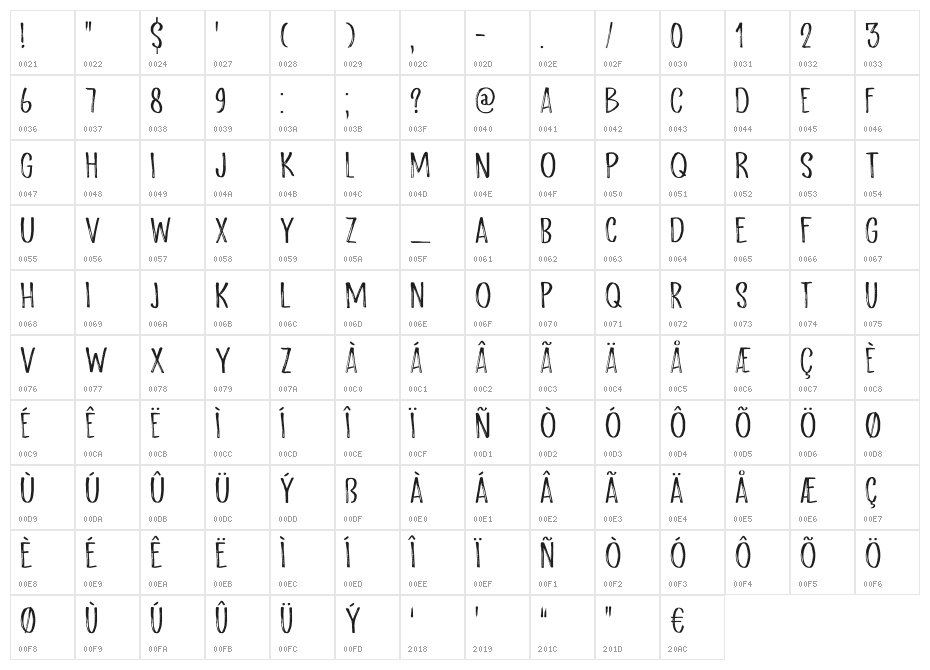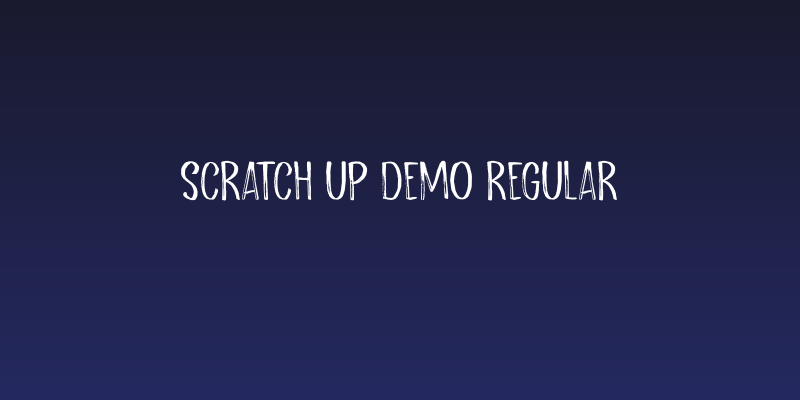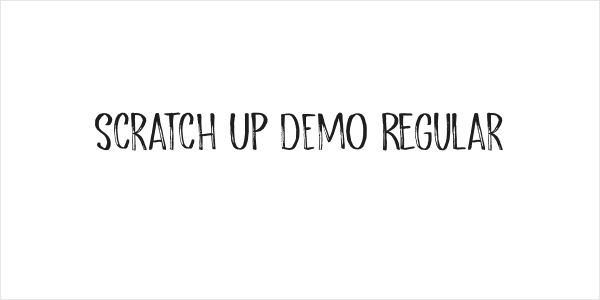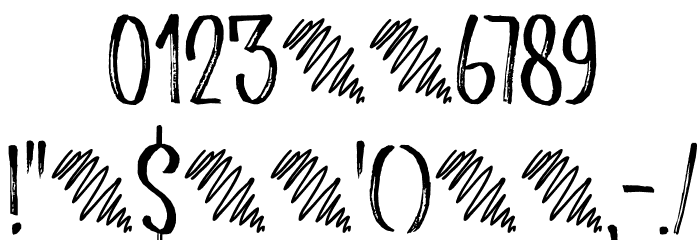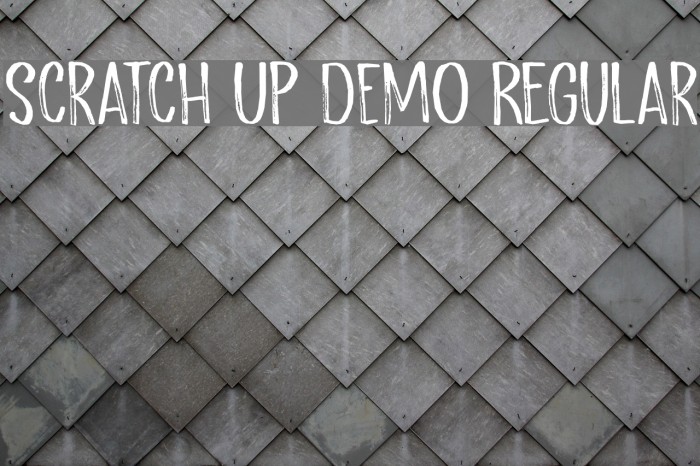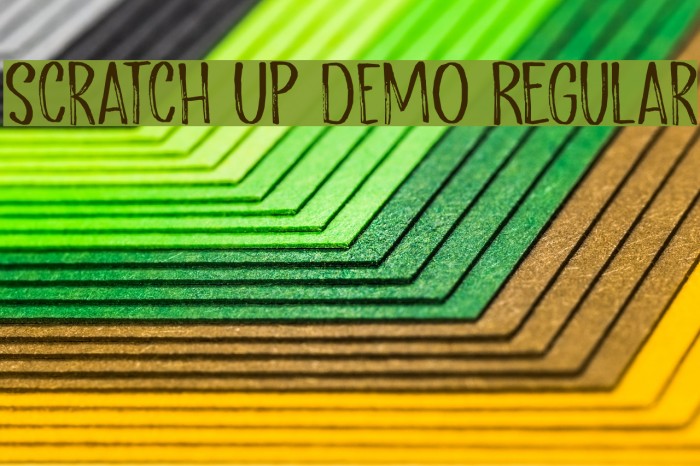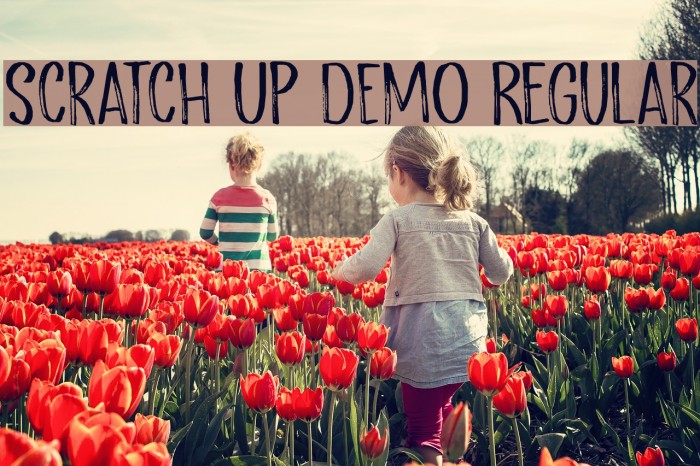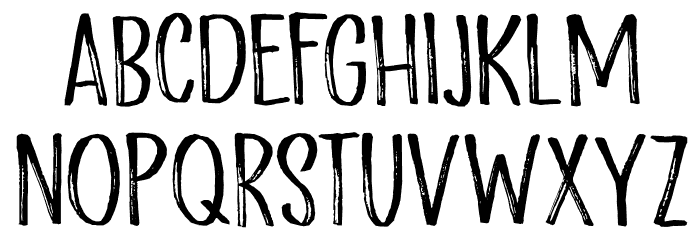
Scratch Up DEMO Regular Font
Scratch Up DEMO Regular Description
This font features a distinctive, hand-drawn style with a rough, textured appearance reminiscent of scratchy pen strokes. The uppercase and lowercase letters maintain a consistent height, giving the text a uniform look despite the irregular line quality. The numerals and special characters follow the same design, ensuring cohesion across all elements. The font's playful and artistic nature makes it ideal for creative projects that require a personal touch. Its unique style captures attention and adds character to any design.
| Overall Style | Artistic, Playful |
| Proposed Projects | Ideal for posters, artistic designs, children's books, and creative branding projects. |